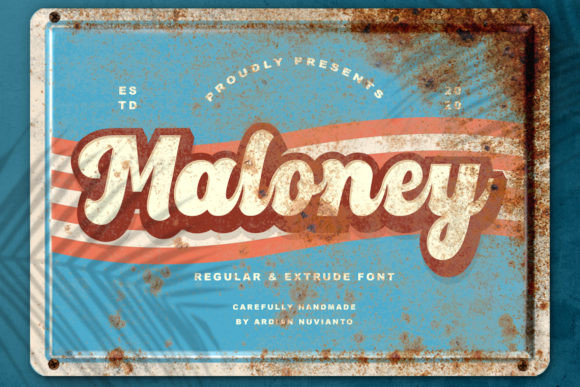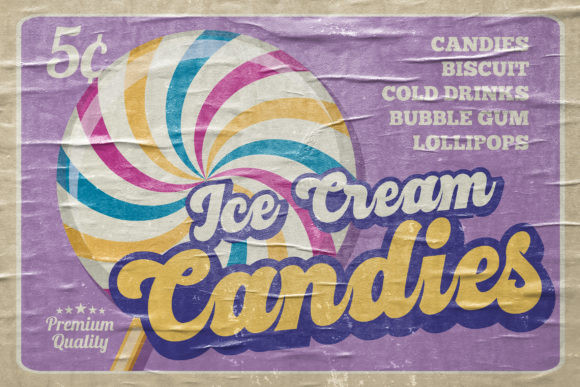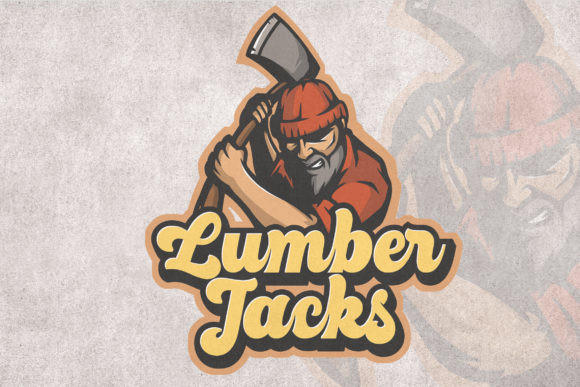
Maloney Font
Maloney font is an inspiring retro display font.
It comes with a solid and extrude version, and is perfect for creating logos, posters, brand packaging, labels, clothing, music covers, and much more!